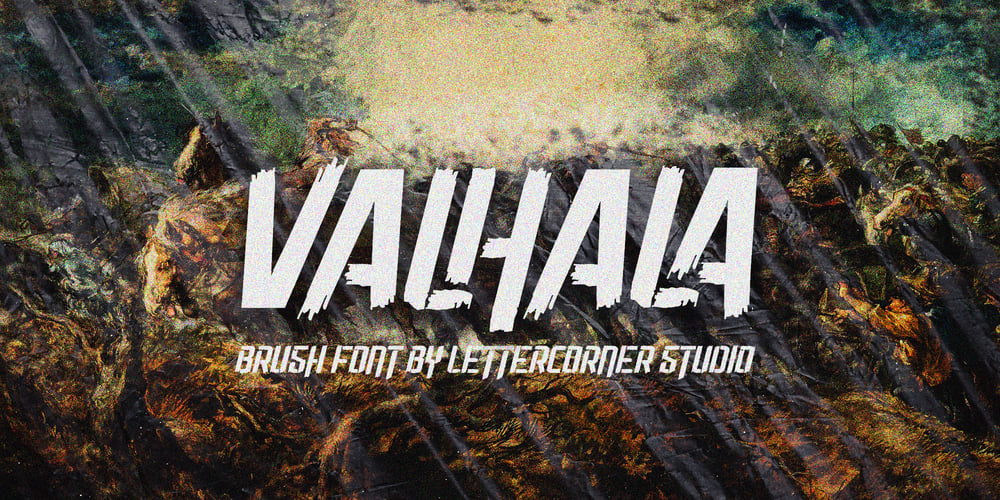
Valhala Font Family was designed by Muhammad Afif Ersya and published by Mevstory Studio. Valhala contains 2 styles and family package options. Valhala is an urban street marker and brush display font, with a bold style. This was made by real marker and you will get the sense of adventure, manly, and strong. This font is perfect for logos, advertising, branding, urban-style posters, social media graphics, invitations, header text, album covers, packaging, product designs, merchandise, etc. This font is full of sets such as uppercase, lowercase, alternates, ligatures, and support for multi-language.So, download this Valhala and make your perfect design!